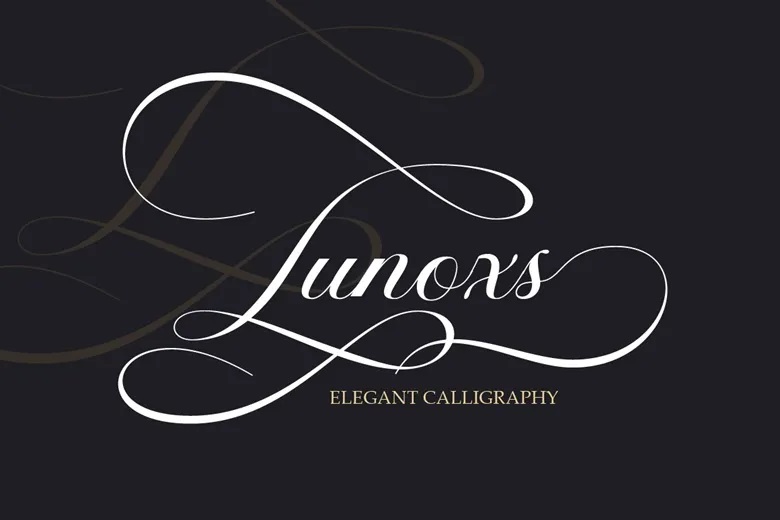
Lunoxs is an elegant calligraphy script font. This font can be suitable for using in photography, social networks, advertisements, logos and branding, invitations, products design, labels, stationery, product packaging, special events and others.
Lunoxs Calligraphy Script Font